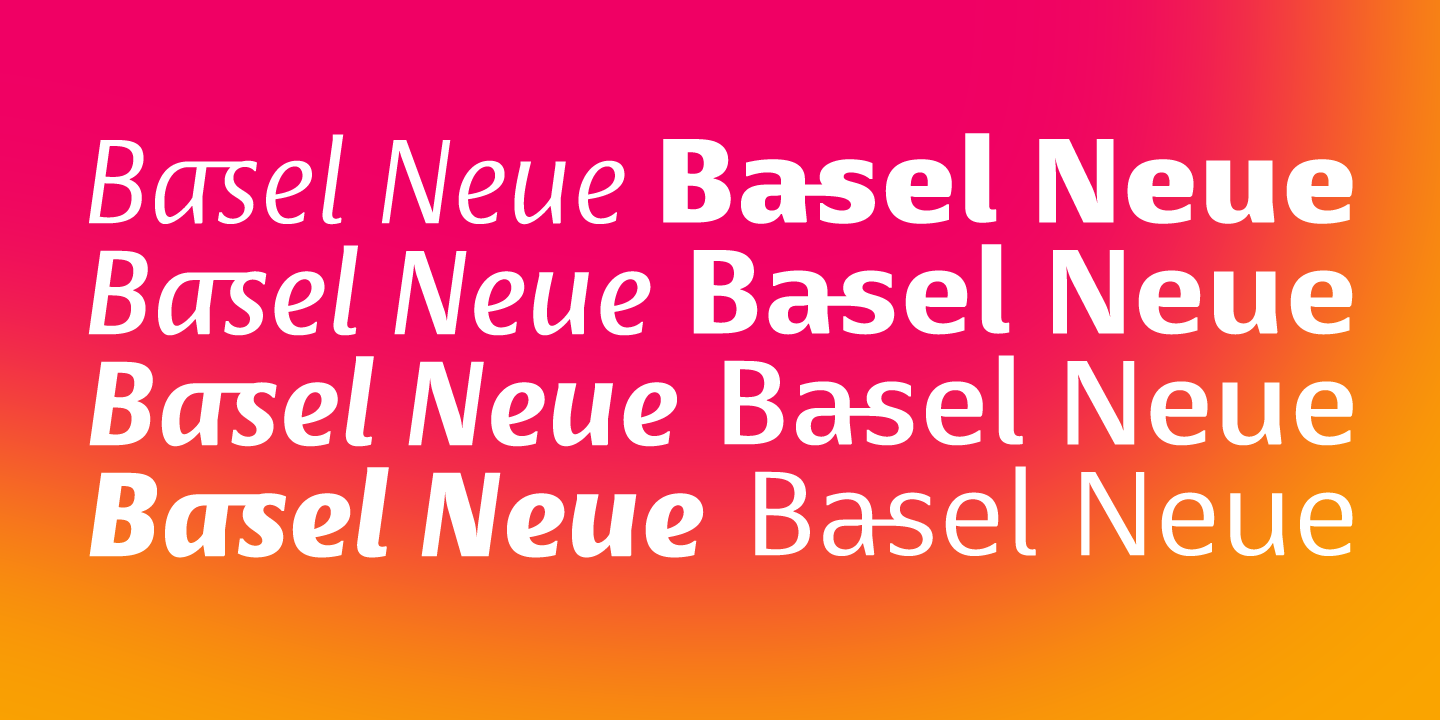
Basel Neue Font is a versatile and highly legible sans-serif typeface, distinguished by its subtle humanistic touch and refined thickness variation. As a complete redesign of BaselSans ITD, it offers a contemporary and discrete aesthetic, making it an excellent choice for corporate branding, editorial design for digital and print media, user interfaces, and information-heavy reports. Imagine it providing sleek readability for a tech company's website, adding a professional yet approachable feel to annual reports, or ensuring impeccable clarity for educational materials. This font is also superb for apparel branding for minimalist fashion lines, packaging design, and any project where clarity, efficiency, and a harmonious visual identity are key. It doesn't just display text; it communicates with universal precision and contemporary flair.
What makes Basel Neue Font so exciting is its remarkable blend of robust functionality with thoughtful, human-centered design. It features strategically chosen ligatures for common letter pairs, a playful set of emoticons and fun symbols activated by discretionary ligatures (e.g., typing ":-)" for a smiley face), and a wealth of useful glyphs including recycling symbols, plastic types, and over 30 currency symbols. This attention to detail and its extensive character set supporting Western, CE, Baltic, and Turkish languages ensure broad versatility. It’s a font that speaks with a clear, confident voice, making it ideal for brands and content creators who want to convey reliability, innovation, and a sophisticated yet friendly aesthetic. Its rigorous testing further ensures reliability for any project.
The Basel Neue Font family is comprehensive, consisting of 8 styles, including 4 weights plus their respective italic versions. This extensive range provides excellent design flexibility and allows for nuanced typographic expressions across various applications. You can expect to find the following key members:
Basel Neue Regular
Basel Neue Regular Italic
Basel Neue Medium
Basel Neue Medium Italic
Basel Neue Bold
Basel Neue Bold Italic
Basel Neue Black
Basel Neue Black Italic
These numerous weights and styles, combined with OpenType features like fractions, old style, lining, and tabular numbers, empower designers to create complex visual hierarchies, emphasize important information, and maintain a consistent, polished, and contemporary look throughout all digital and print assets. The opportunity to utilize Basel Neue Font Free Download is an excellent way to experience its versatile elegance and modern appeal for your personal projects.